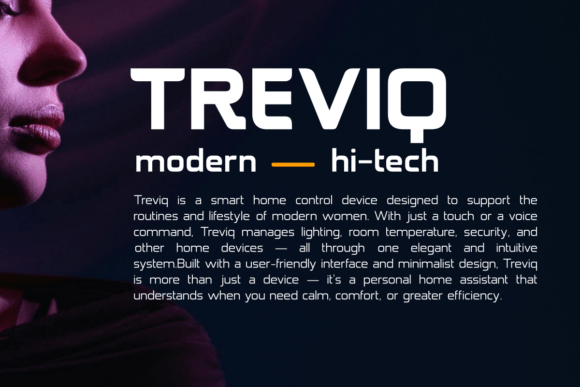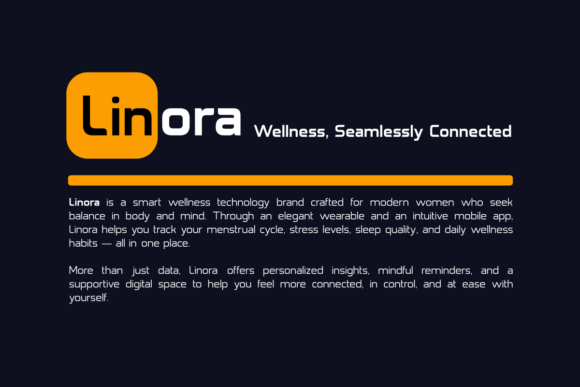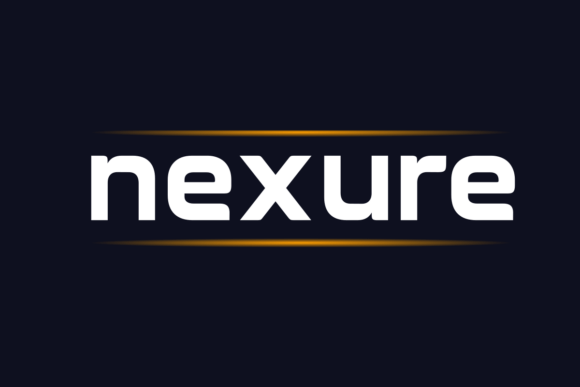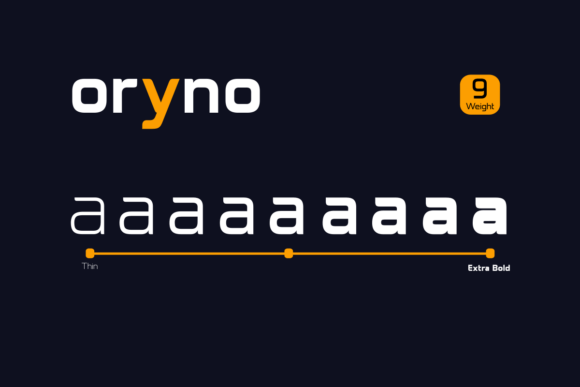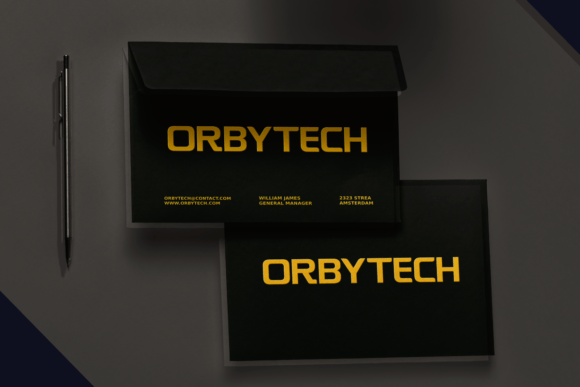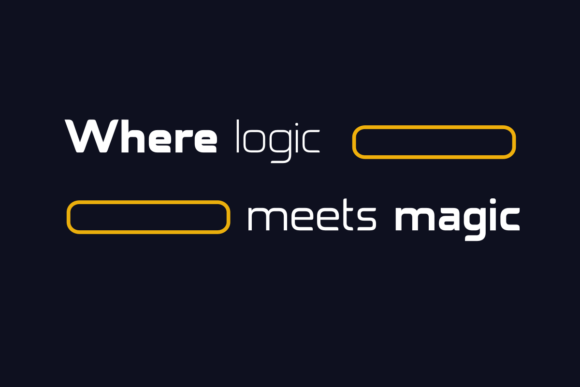
Introduction to Oryno Font
Have you ever found yourself staring at a blank canvas, desperately seeking the perfect font to bring your creative project to life? That moment of frustration is a familiar one for many designers. But what if you could unlock a design resource that not only elevates your work but also makes it universally understood?
Enter the Oryno Font, a modern sans serif masterpiece that’s poised to revolutionize your design game. With its sleek lines and harmonious proportions, this versatile font is a high-quality addition to any creative endeavor. Whether you’re working on a free download project or crafting a premium brand identity, Oryno Font is the perfect choice for designers who demand clarity, adaptability, and a dash of style.
From logos to editorial layouts, Oryno Font’s nine distinct weights – Thin to Black – ensure that you can achieve the perfect visual balance, every time. With a transparent background and crisp typography, this font is a game-changer for designers who crave precision and sophistication.
Key Features of Oryno Font
- High-quality design resource for creative projects, available for free download with a transparent background.
- Includes a range of characters and glyphs, including Latin, Cyrillic, and Greek alphabets, making it suitable for diverse creative projects.
- Features a unique, modern design that is perfect for branding, logos, and other visual identity elements.
Honest Review: Oryno Font
I recently stumbled upon the Oryno Font, and I must say, it’s a great addition to any design resource. The font is perfect for a creative project that requires a touch of elegance and sophistication.
- High-quality design: The Oryno Font is designed with precision and care, resulting in a crisp and clean appearance.
- Transparent background: The font’s transparent background allows for easy integration with any design element, making it a versatile choice.
- Limited character set: The font’s character set is limited, which may not be suitable for projects that require a wide range of characters.
- Not ideal for small text: The font’s design may not be suitable for small text, as it can become difficult to read.
Overall, I’m impressed with the Oryno Font. Its high-quality design, free download, and transparent background make it a great addition to any design resource. While it has some limitations, it’s still a fantastic choice for many creative projects.
Tips for Getting the Most Out of Oryno Font
Experiment with different font sizes, styles, and colors to create visually appealing designs. Use Oryno Font in combination with other design elements to add depth and interest to your creative project.
Oryno Font is suitable for various creative projects, including logos, business cards, brochures, and social media graphics. It’s a high-quality font that can add a professional touch to your designs.